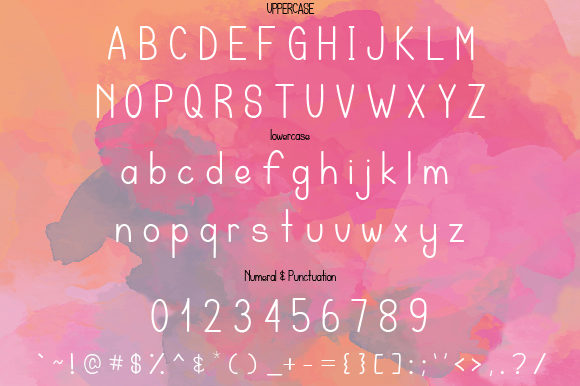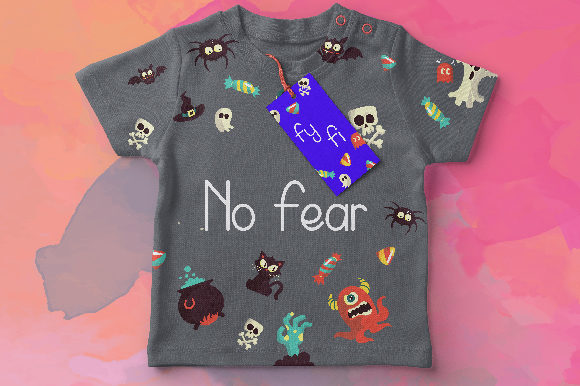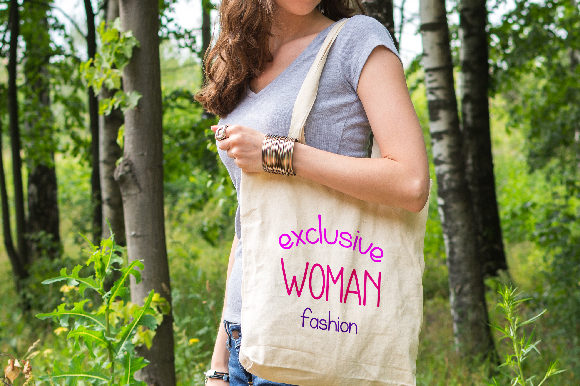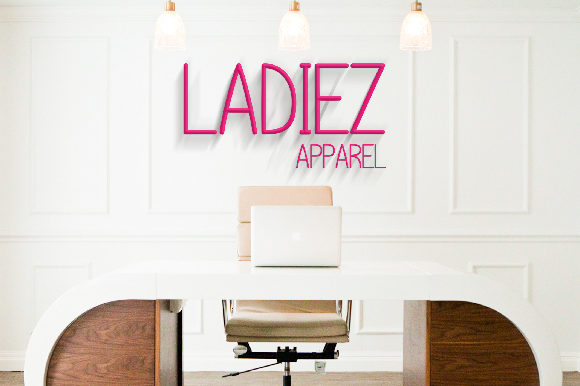
Safira Font
About Safira Font
The Safira is a handwritten font that simulates text being written on a whiteboard/chalkboard. It’s best suited for teaching, t-shirts, souvenirs, websites, apps, games or other educational products.